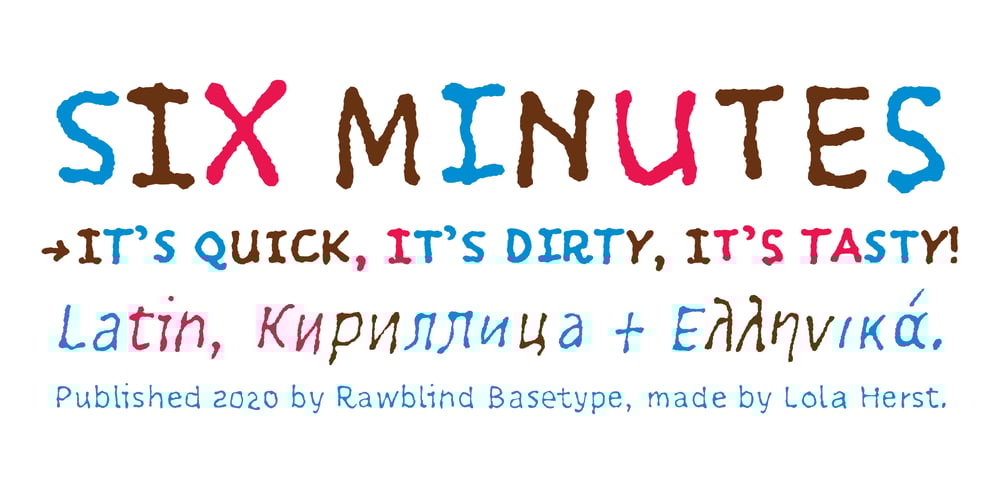
Six Minutes Font Family was designed by Lola Herst and published by Rawblind Basetype. Six Minutes contains 6 styles and family package options. It’s quick, it’s dirty, it’s tasty! Add a casual, informal feel to anything. Here is SixMinutes and it’s surprisingly complete.